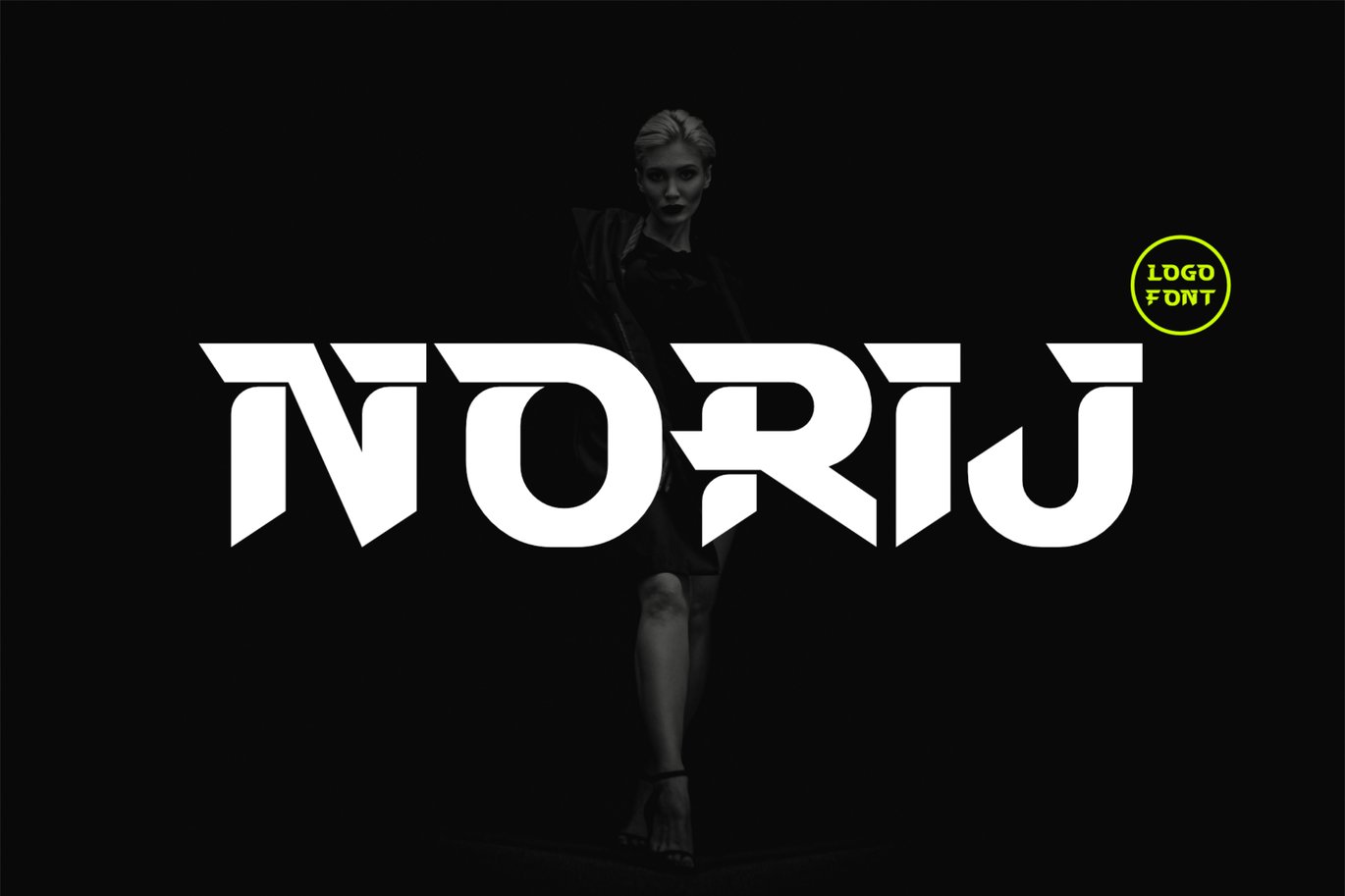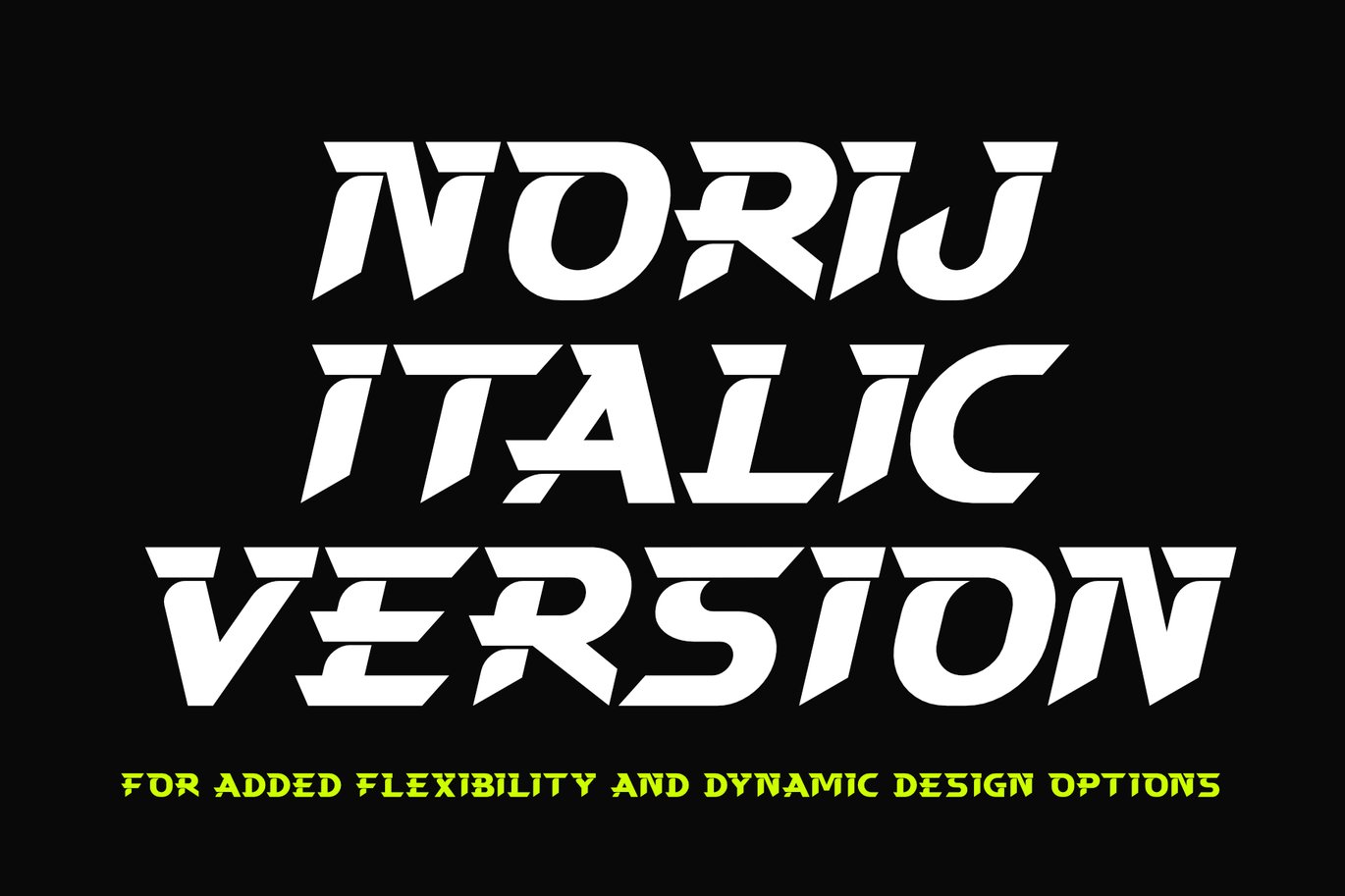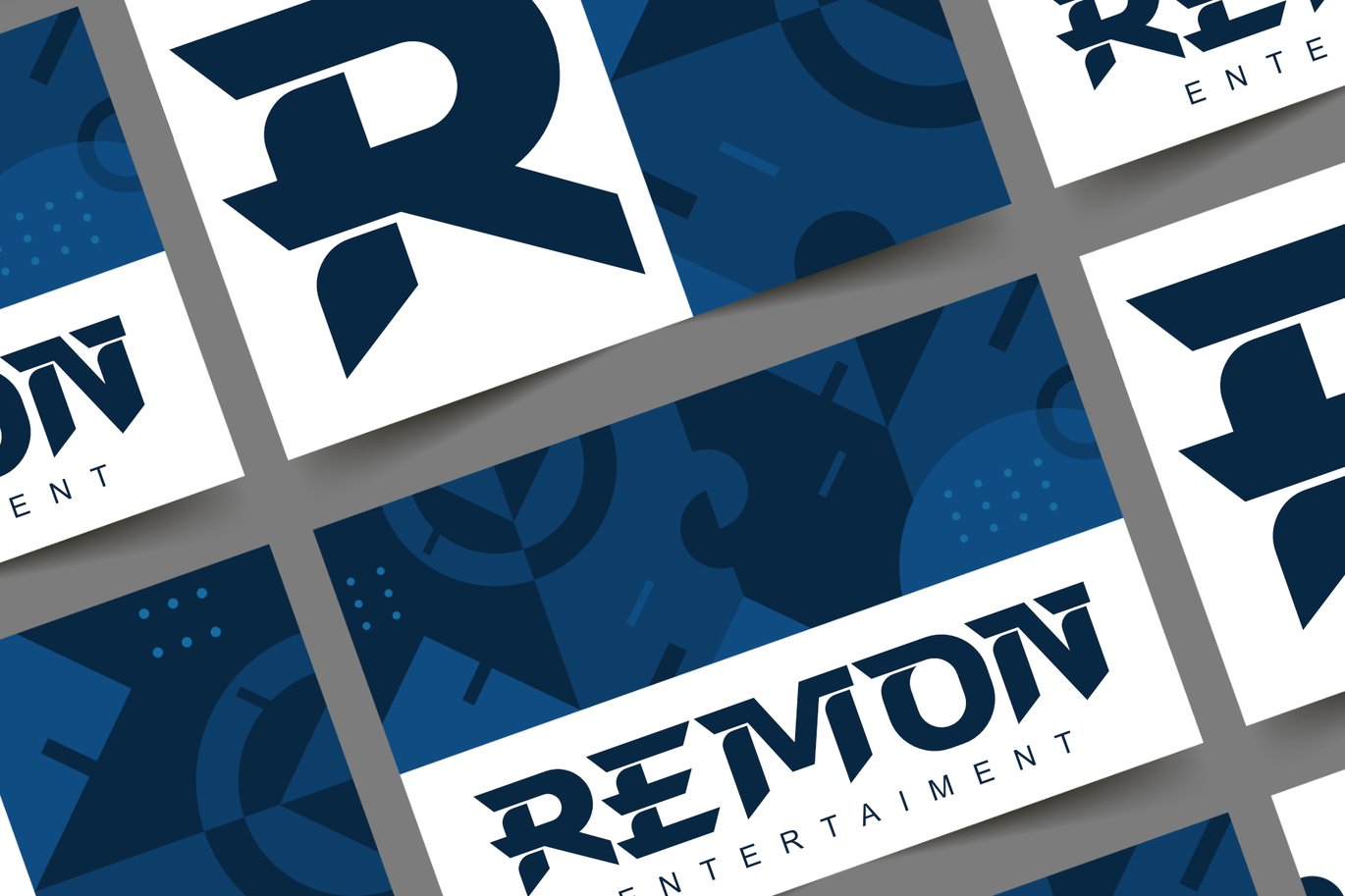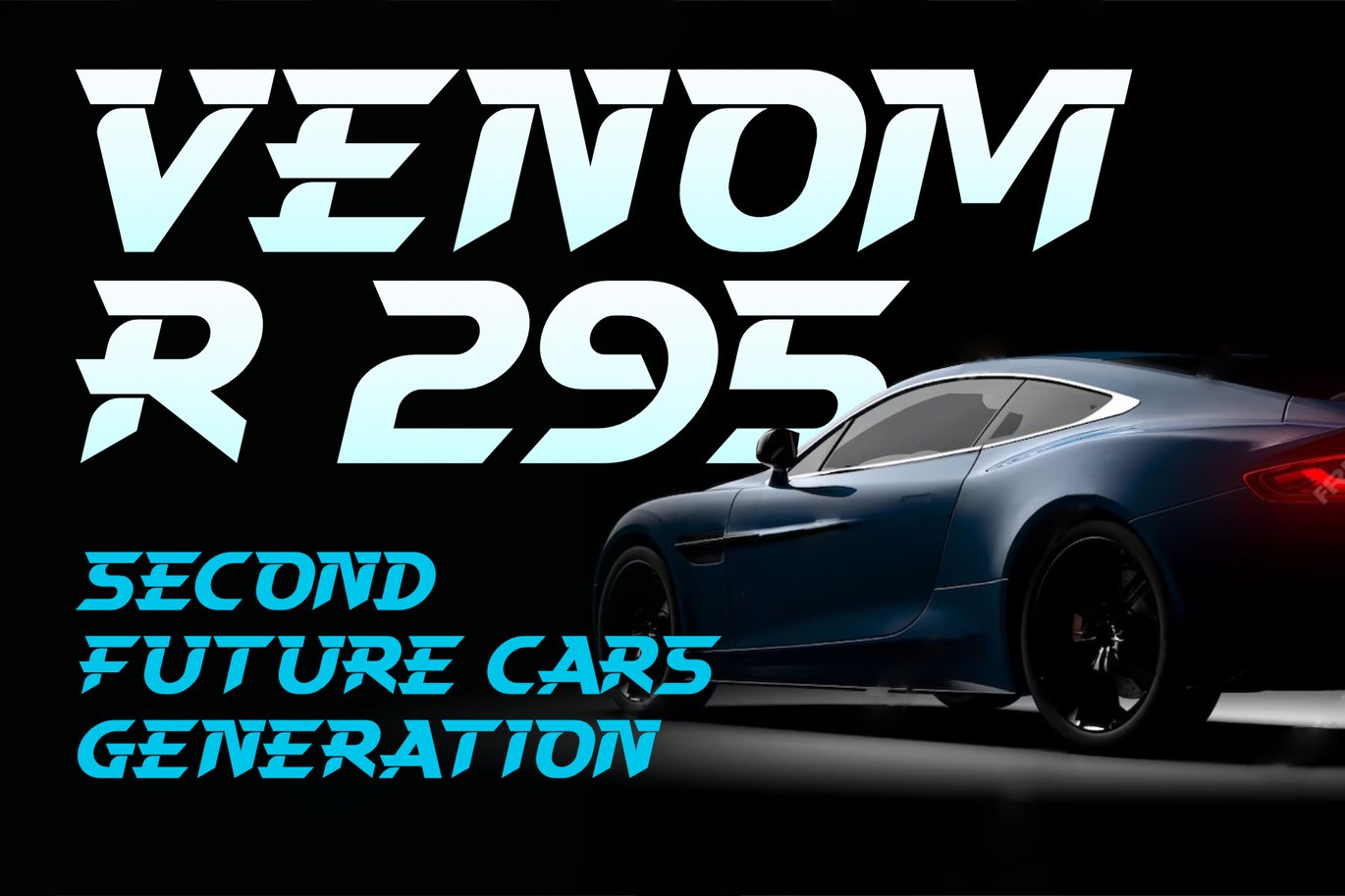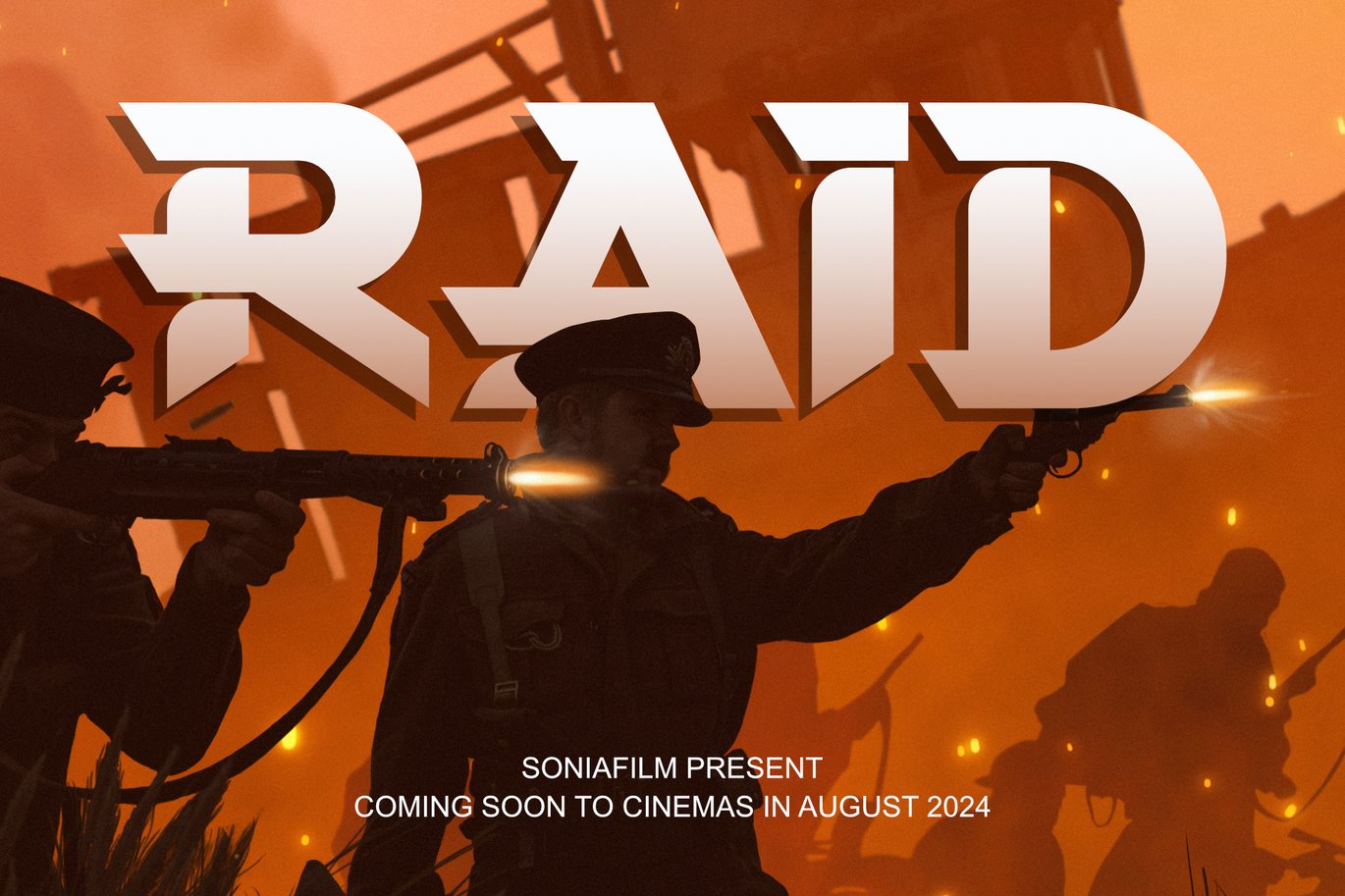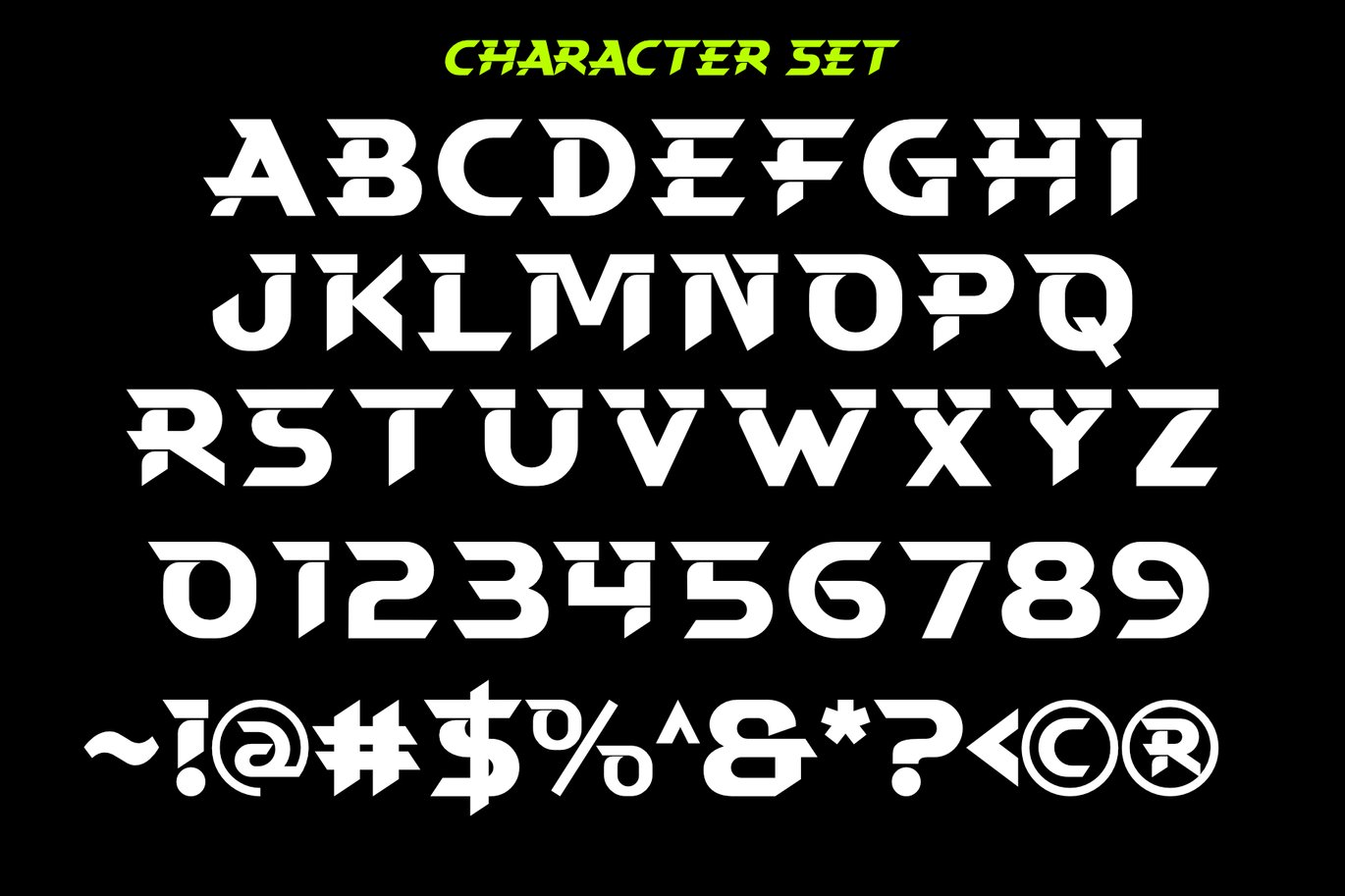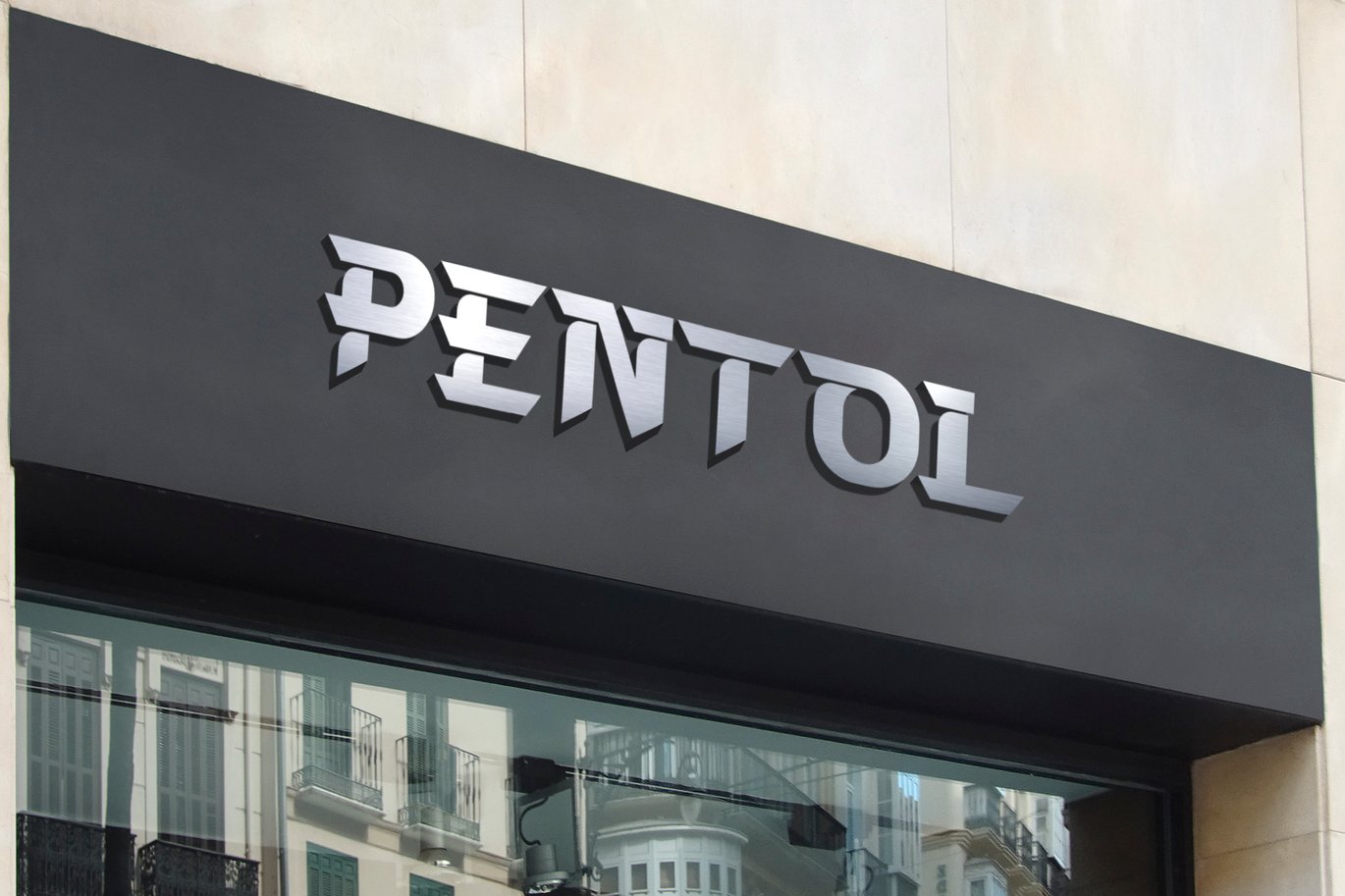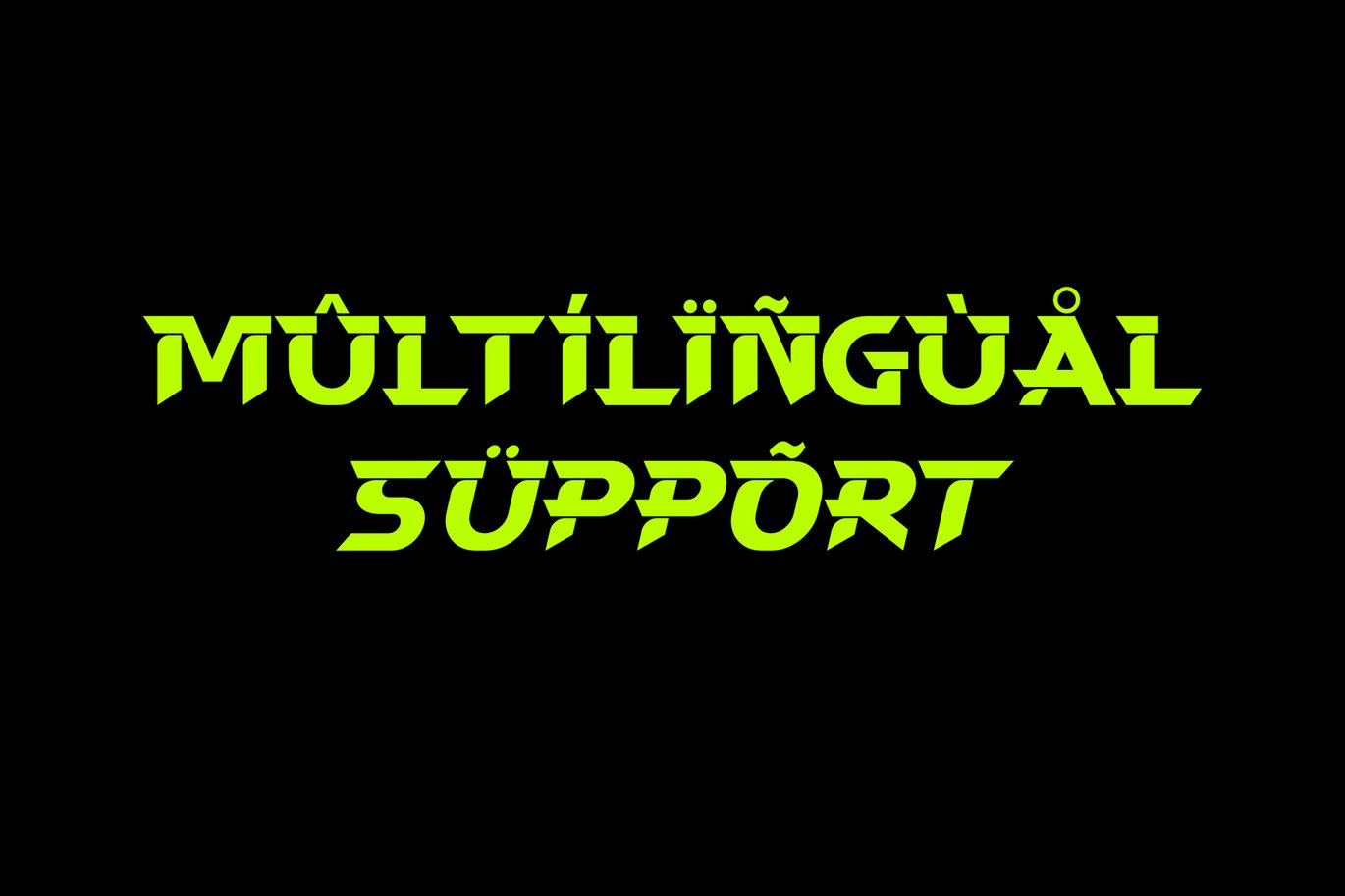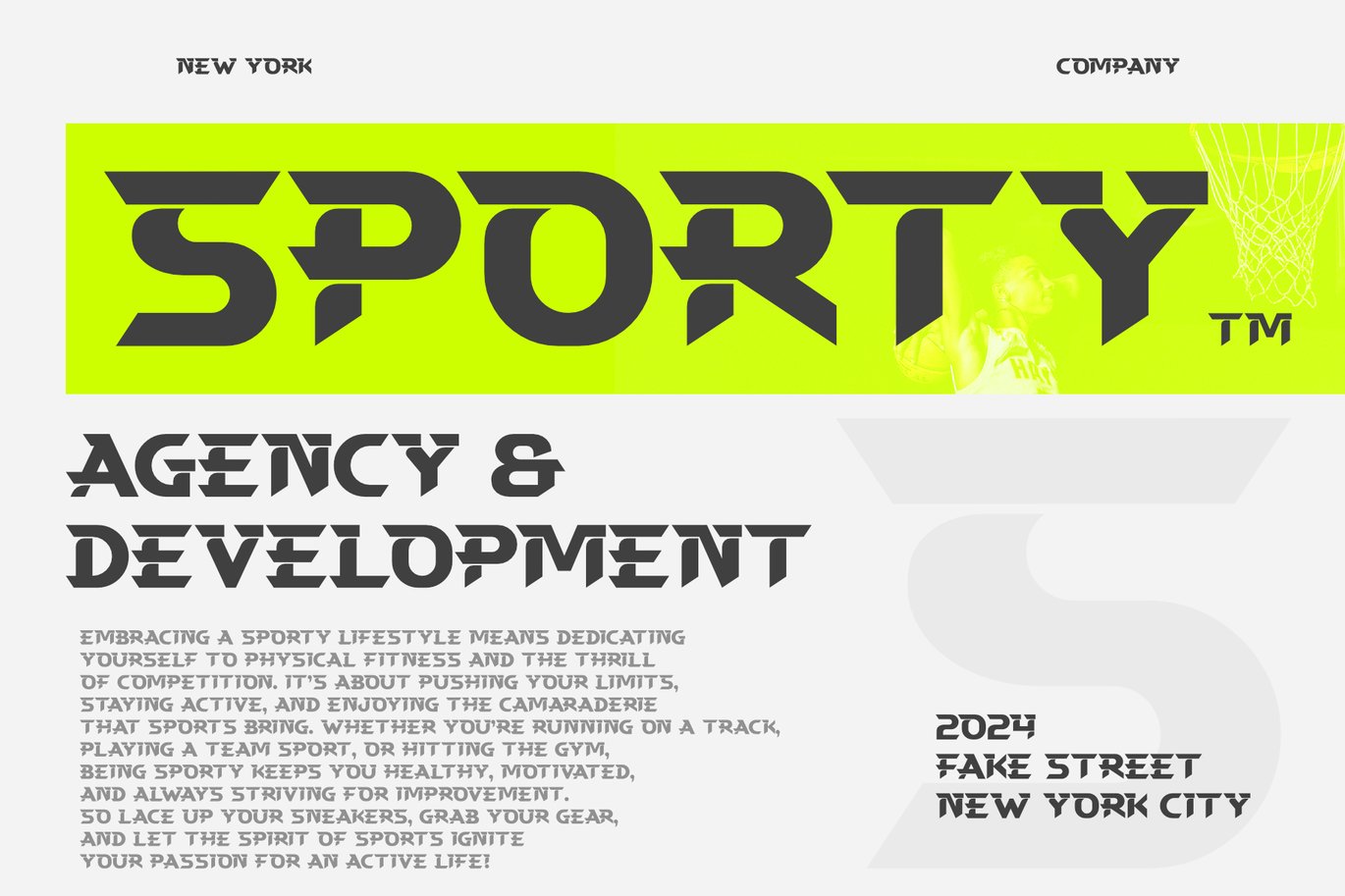
Norij – Logo font
Norij – Logo Font
Introducing Norij, a sleek and modern logo font designed to elevate your brand’s identity. Norij is a versatile typeface that combines contemporary elegance with a touch of boldness, making it perfect for creating memorable and impactful logos. Featuring italic styles, Norij offers even greater flexibility and creative possibilities for your branding projects.
Key Features :
- Stylish Design: Norij’s clean lines and sophisticated curves make it ideal for logos, branding, and headlines.
- Versatility: Whether you’re designing for a tech startup, fashion brand, or creative agency, Norij adapts seamlessly to various
styles and industries. - Character Set: Includes uppercase letters, numbers, punctuation marks and multilingual support, ensuring you have everything
you need for comprehensive branding. - Italic Version: Features an italic variant for added flexibility and dynamic design options, allowing you to emphasize and
applications. - High Quality: Meticulously crafted to ensure optimal readability and visual appeal at any size.
Enhance your brand’s visual identity with Norij. Its distinctive and professional appearance will set your logos apart, leaving a lasting impression on your audience. Unleash your creativity and let Norij bring your brand’s vision to life.